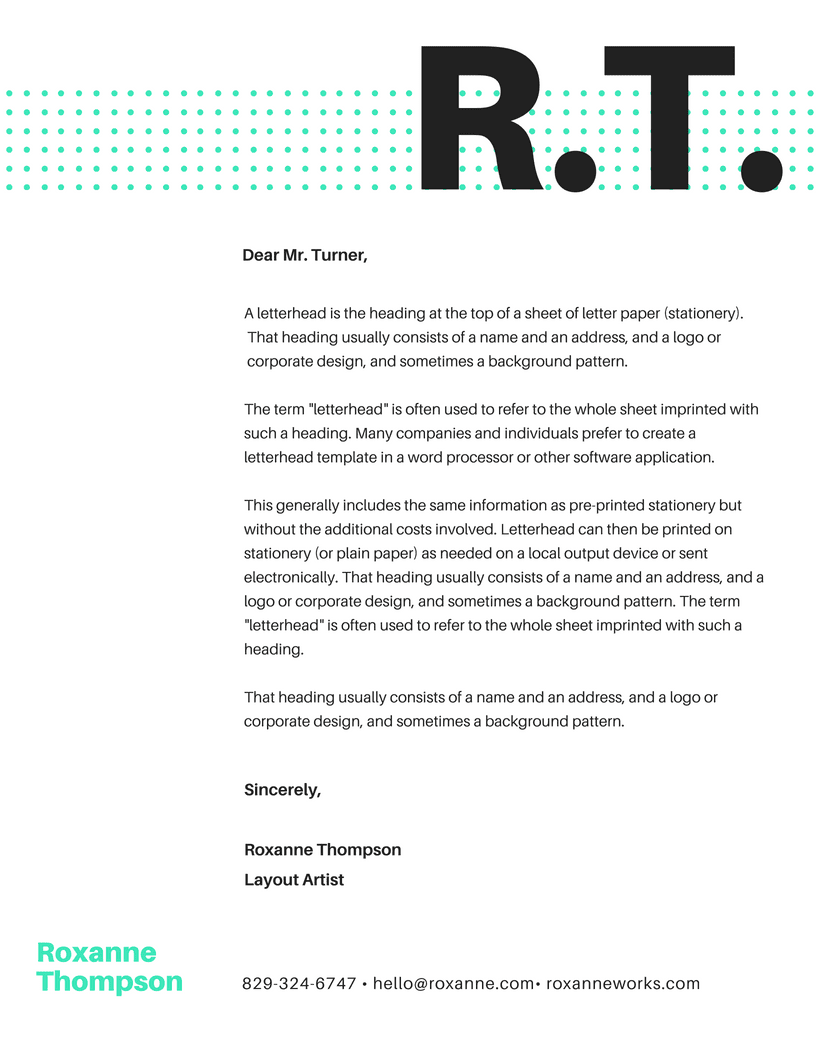
Good Font For Business Letter . Times new roman is the most common business letter font, according to purdue online writing lab. Discover the best fonts for letters to enhance readability and style in professional and personal communication. A serif font, times new roman can easily be read at many different sizes and appears. They can make a font more versatile, allowing you to convey different messages throughout your designs with a single font.